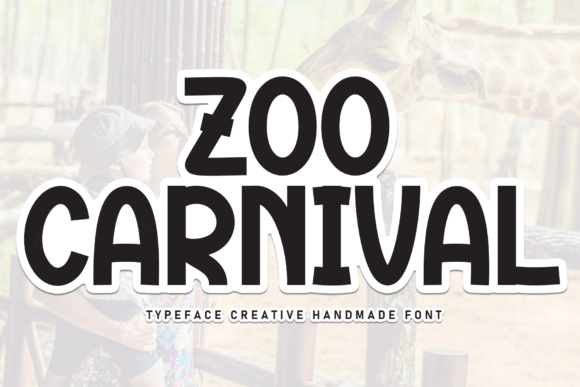
Venture into a realm of boundless creativity with Zoo Carnival Font, a whimsical handwritten display font that sparks joy and enchantment into your designs. Experience the magic of a child's imagination brought to life, where playful characters dance among the letters, adding a dash of delight to every word.
Zoo Carnival Font isn't just a font; it's a gateway to a fantastical world where letters transform into captivating creatures, each with its own unique personality. Unleash your imagination and watch as your words morph into a vibrant parade of colors and shapes, leaving a lasting impression on whoever encounters them.
With Zoo Carnival Font, the possibilities are endless. Craft enchanting wedding invitations that transport your guests to a realm of fairy tales. Create eye-catching cards that burst with personality, leaving a lasting impression on recipients. Embark on whimsical design projects that captivate and engage your audience, leaving them spellbound by your creativity.
Step into the world of Zoo Carnival Font, where the ordinary becomes extraordinary and the mundane transforms into the magical. Let your imagination soar as you explore the limitless possibilities of this captivating font, creating designs that spark joy, ignite wonder, and leave an everlasting impression.